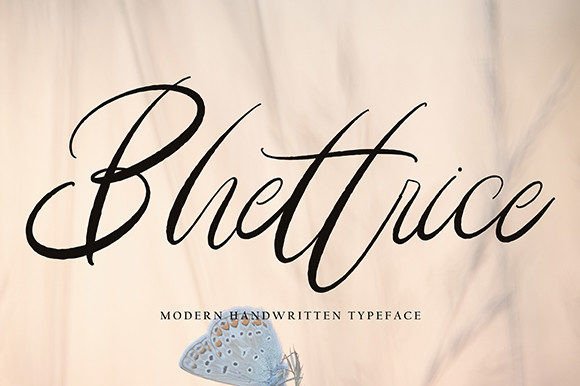
The Quest for the Perfect Script Font: Discovering Bhettrice
I still remember the frustration of working on a project, hours spent crafting the perfect design, only to be held back by one thing: the font. I was creating a logo for a client’s boutique store, and I just couldn’t find a script font that felt elegant, modern, and unique. That was until I stumbled upon Bhettrice, a beautifully flowing script font that instantly elevated my design. If you’re a designer, crafter, or creative hobbyist like me, you’ll love exploring the possibilities with Bhettrice.
An Honest Review of Bhettrice
- ✨ Elegant and Modern Design: Bhettrice boasts a sleek, contemporary look that’s perfect for projects that need a touch of sophistication.
- ✅ Versatile: This font is incredibly versatile, suitable for a wide range of projects including quotes, logos, blog headers, posters, branding, letters, invitations, and stationery.
- 💫 Beautifully Flowing: The script flow of Bhettrice is mesmerizing, making it ideal for creating visually appealing text-based designs.
While Bhettrice is an amazing font, there are a few minor things to keep in mind:
- ⚠️ Legibility at Small Sizes: Like many script fonts, Bhettrice can be a bit tricky to read at very small sizes. It’s best used at larger sizes where its beauty can shine.
- 🤔 OpenType Features: While Bhettrice supports OpenType features, some users might find the variety of glyphs and stylistic alternates a bit overwhelming if they’re not familiar with how to access them.
The Story Behind Bhettrice
Bhettrice was designed with the intention of creating a modern script font that exudes elegance and versatility. Inspired by classic calligraphy and modern digital typography, Bhettrice aims to bring a touch of sophistication to any design project. While the specific designer behind Bhettrice might not be widely known, their passion for typography and design excellence shines through in this beautiful font.
Q: Is Bhettrice suitable for body text?
A: While Bhettrice is stunning, it’s primarily designed for display purposes. Its elegance and flowing script are best appreciated at larger sizes, making it less ideal for lengthy body text.
Q: Does Bhettrice support multiple languages?
A: Bhettrice, like many modern fonts, supports a range of languages, especially those using the Latin alphabet. For specific language support, it’s best to consult the font’s documentation or contact the designer.